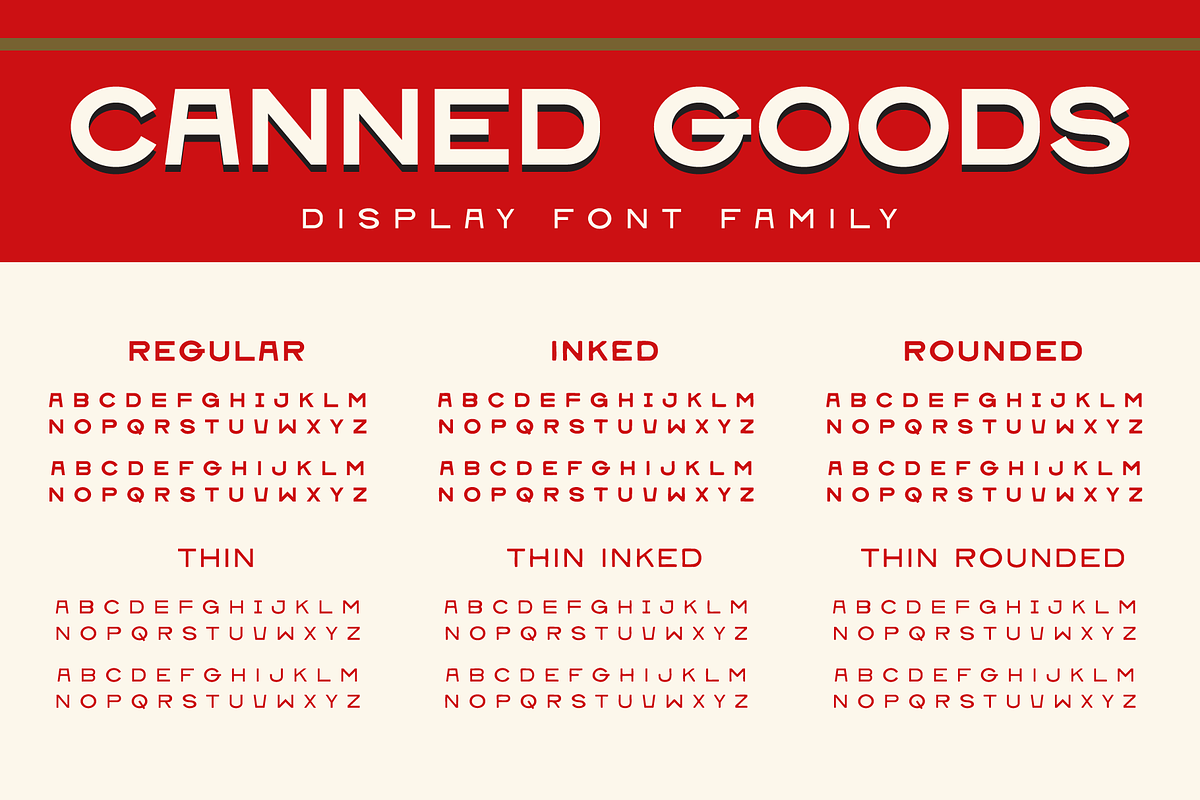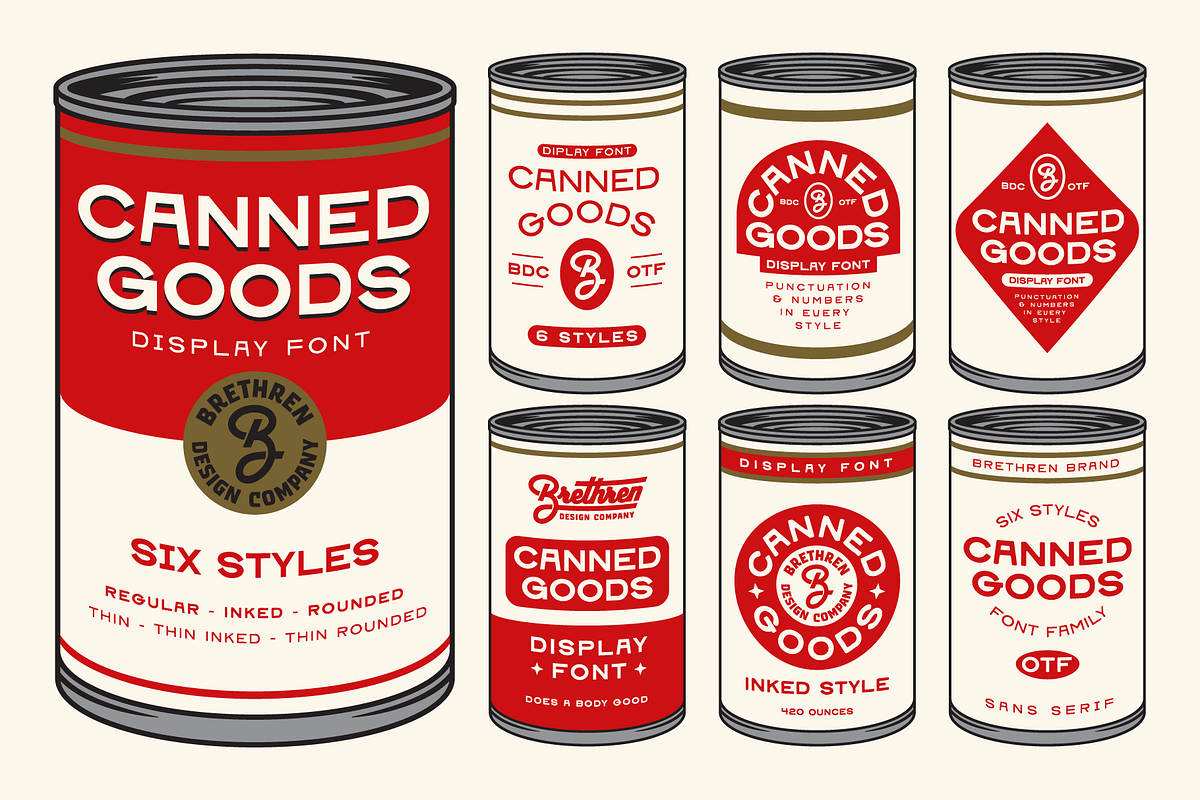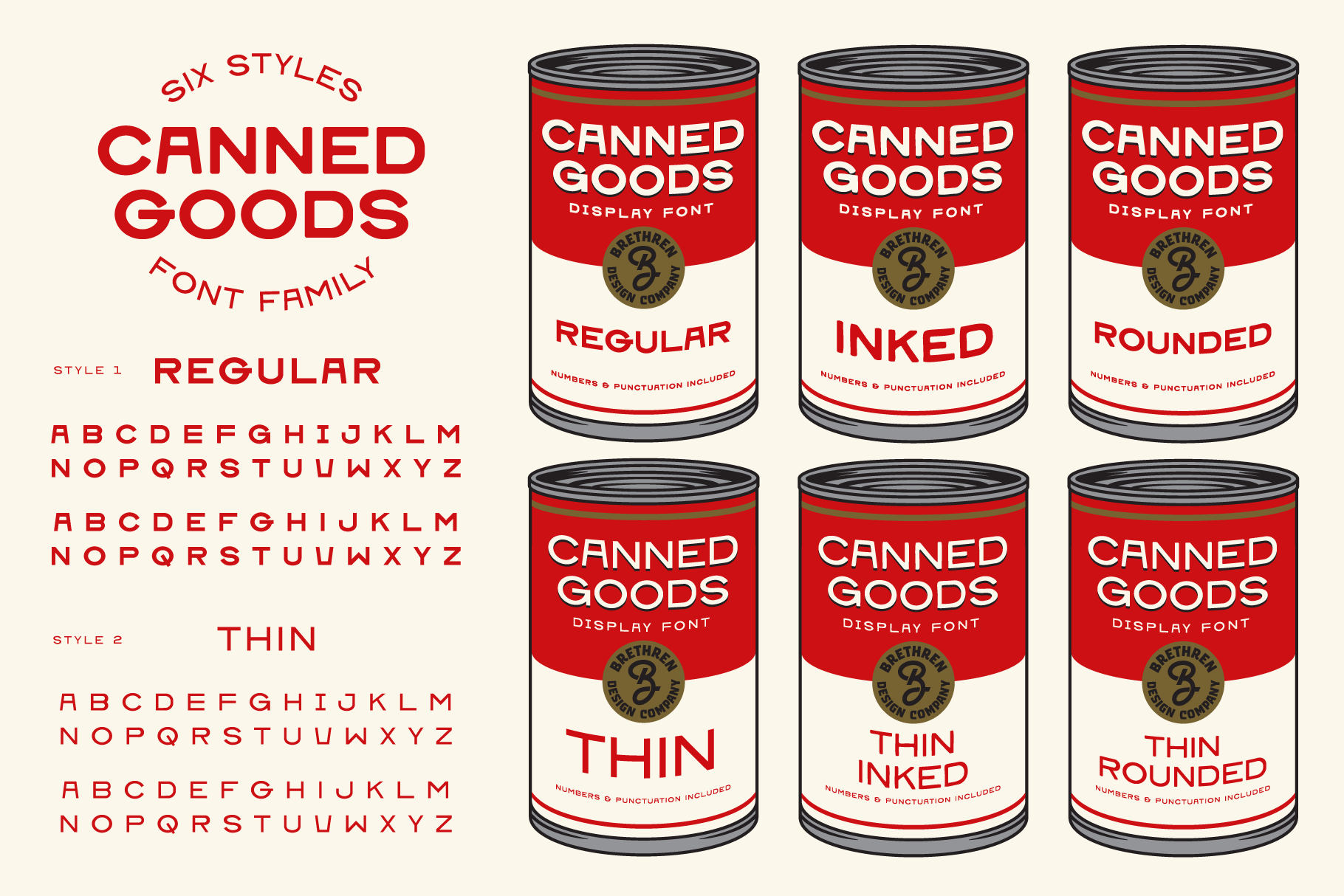
Canned Goods Font Family
Canned Goods is a vintage classic sans serif font family with 6 styles: regular, inked, rounded, thin, thin inked, & thin rounded. Canned Goods pairs well with our Old Standard font family!